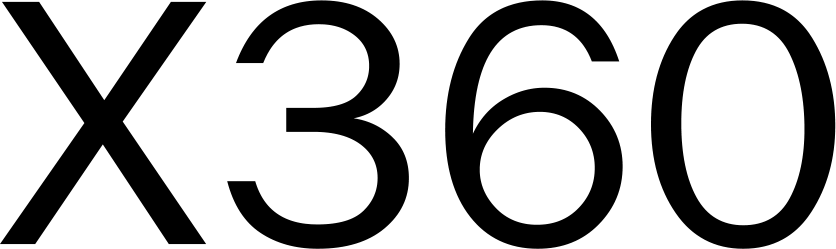
X360 Font
Designed byRedge
X360 font is another elegant design to make a comfort zone for your creation. It is excellent to mention that in some uppercase letters, more lines are designed than expected, and these extra lines can make the font unique to the audience.
We can mention the scheme of flyers, posters, and business cards of many fashions and luxury brands, T-shirts, headlines, websites, and social media posts among this sans serif font‘s applications.